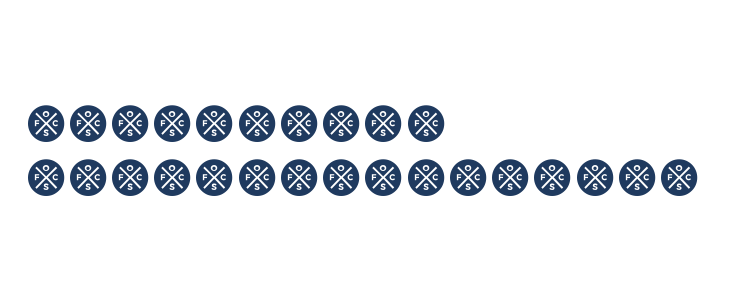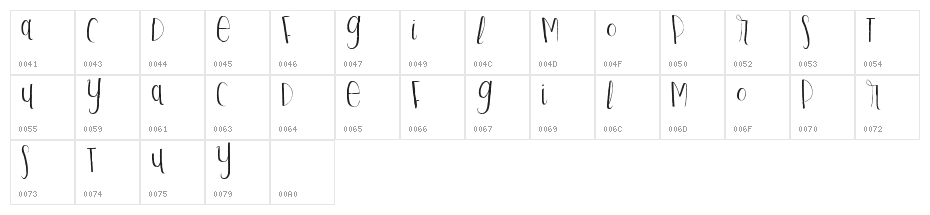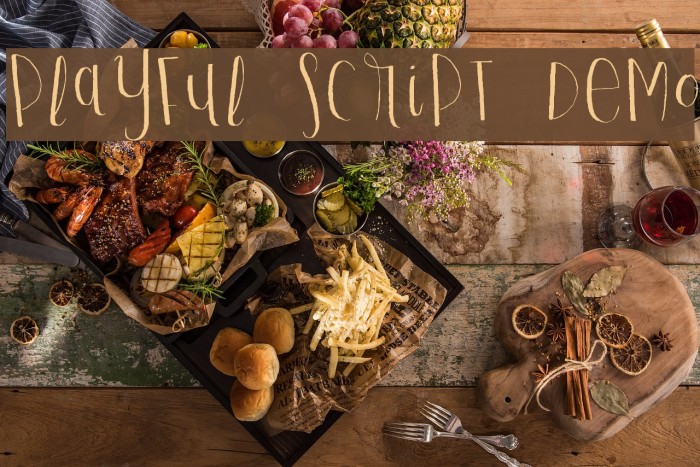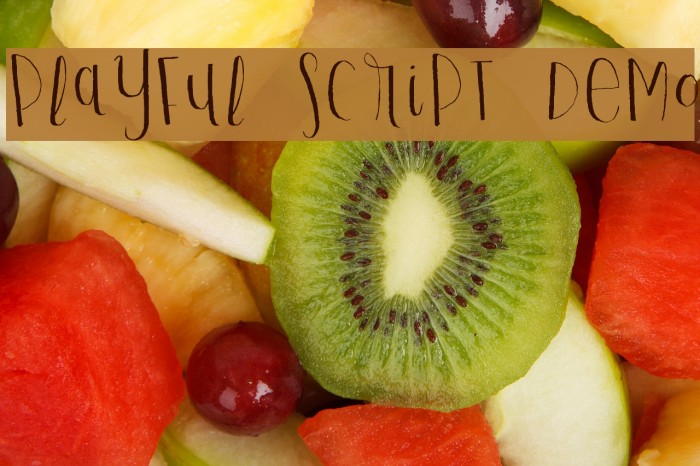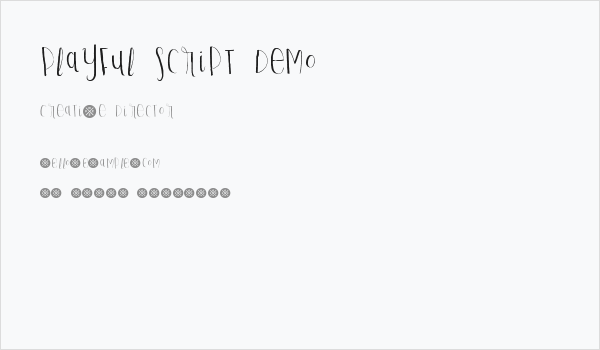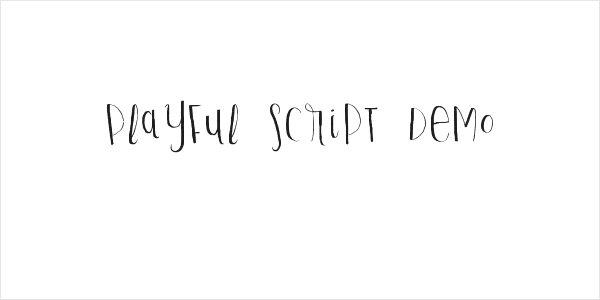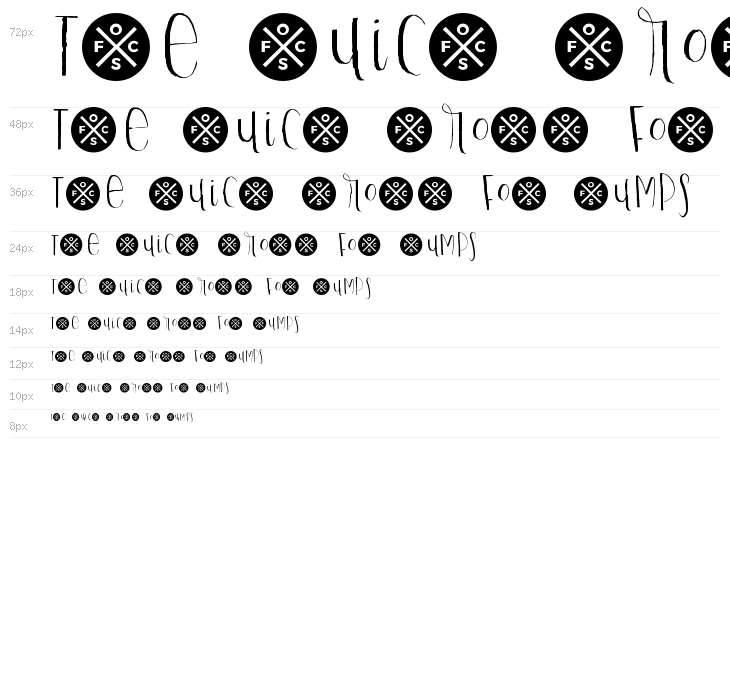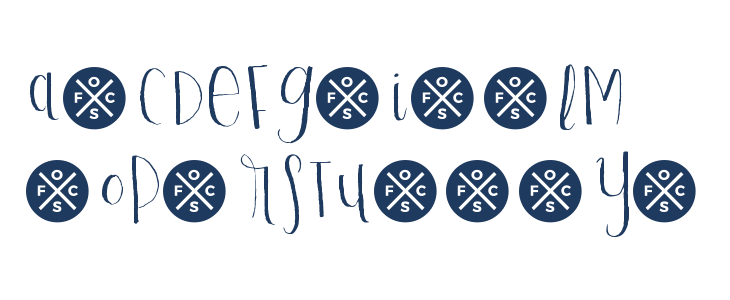
Playful Script Demo Font
Playful Script Demo Description
This font exudes a whimsical and playful charm, characterized by its flowing, handwritten style. The letters are crafted with a casual elegance, featuring varying stroke widths that give it a dynamic and lively appearance. The uppercase letters are tall and slender, while the lowercase letters maintain a consistent rhythm, adding to the font's overall fluidity. The unique character shapes and slight slant enhance its informal and friendly vibe, making it perfect for creative and artistic projects. The font's design is both approachable and stylish, with a touch of sophistication that makes it versatile for various uses.
| Overall Style | Playful |
| Use Case | Logos, Invitations, Creative projects |
| Proposed Projects | Ideal for greeting cards, invitations, branding, and creative projects that require a personal touch. |